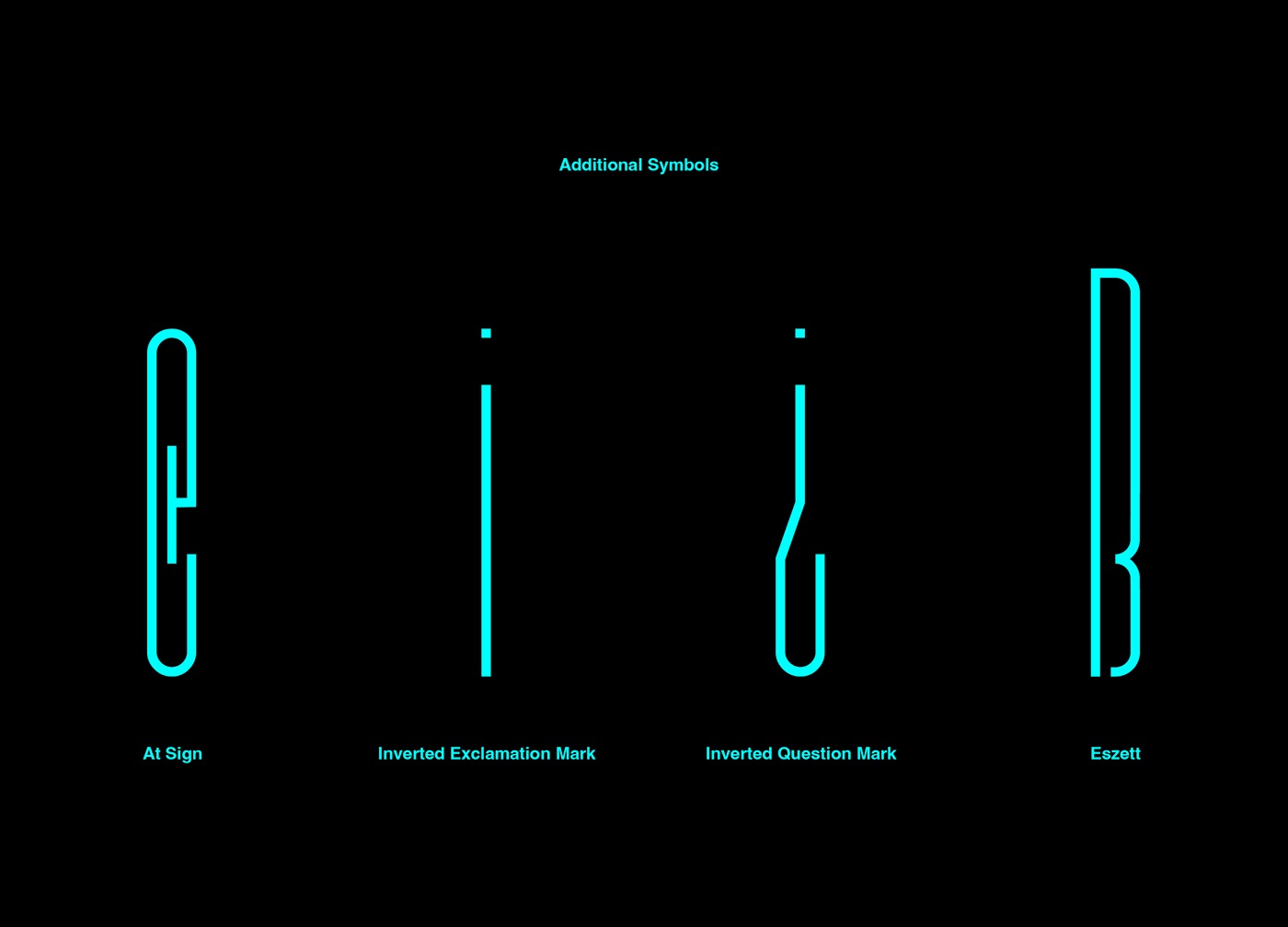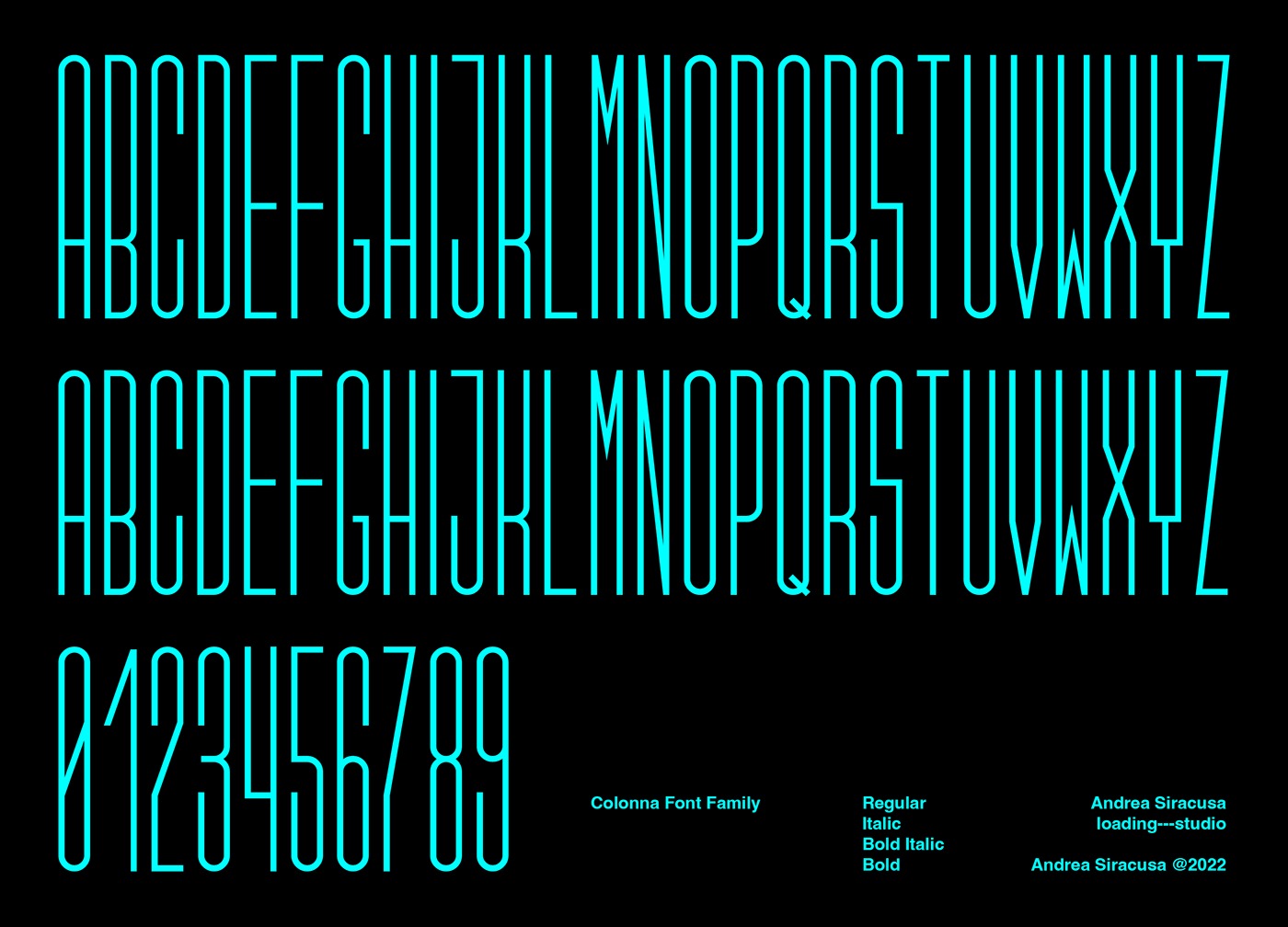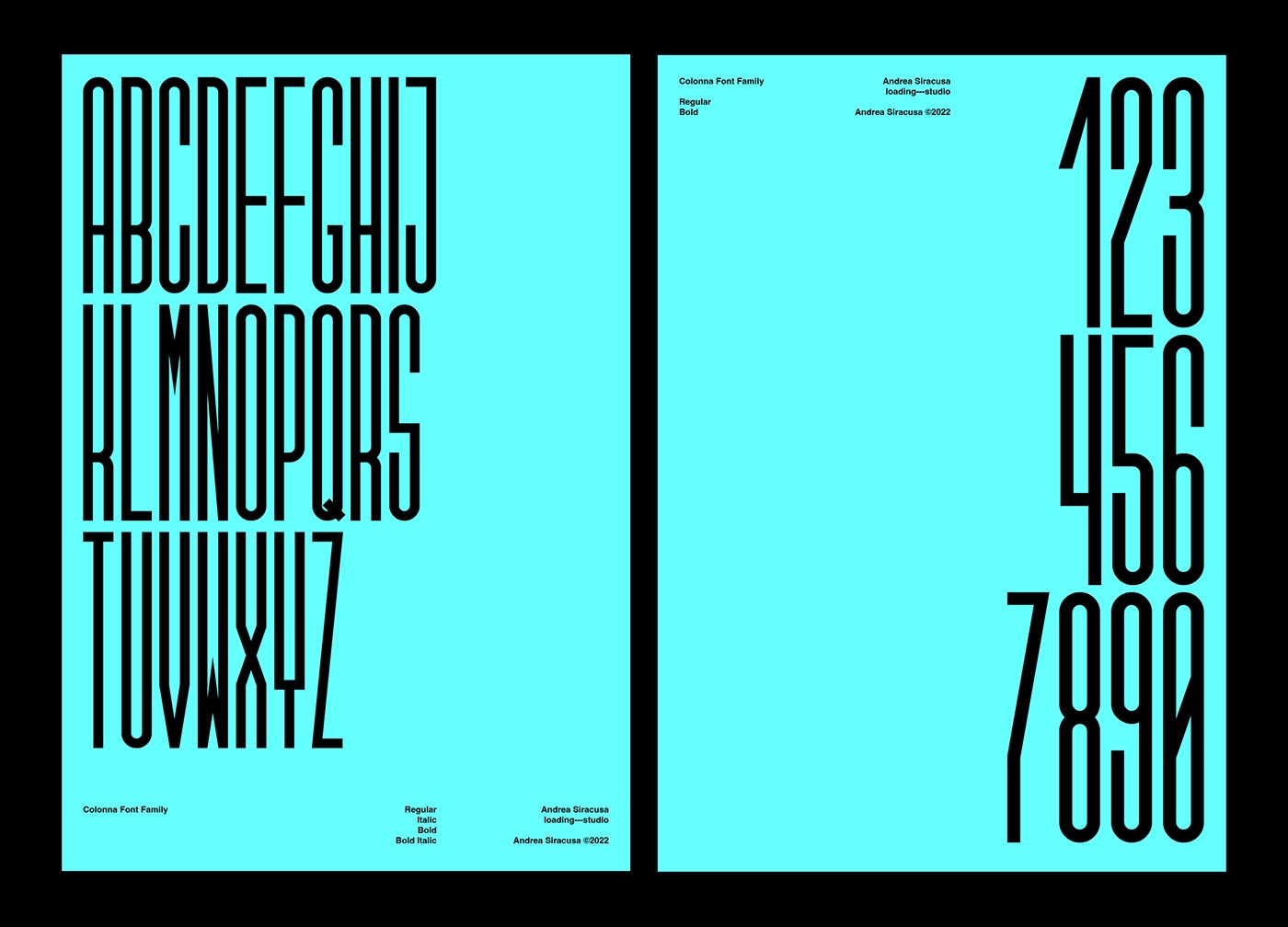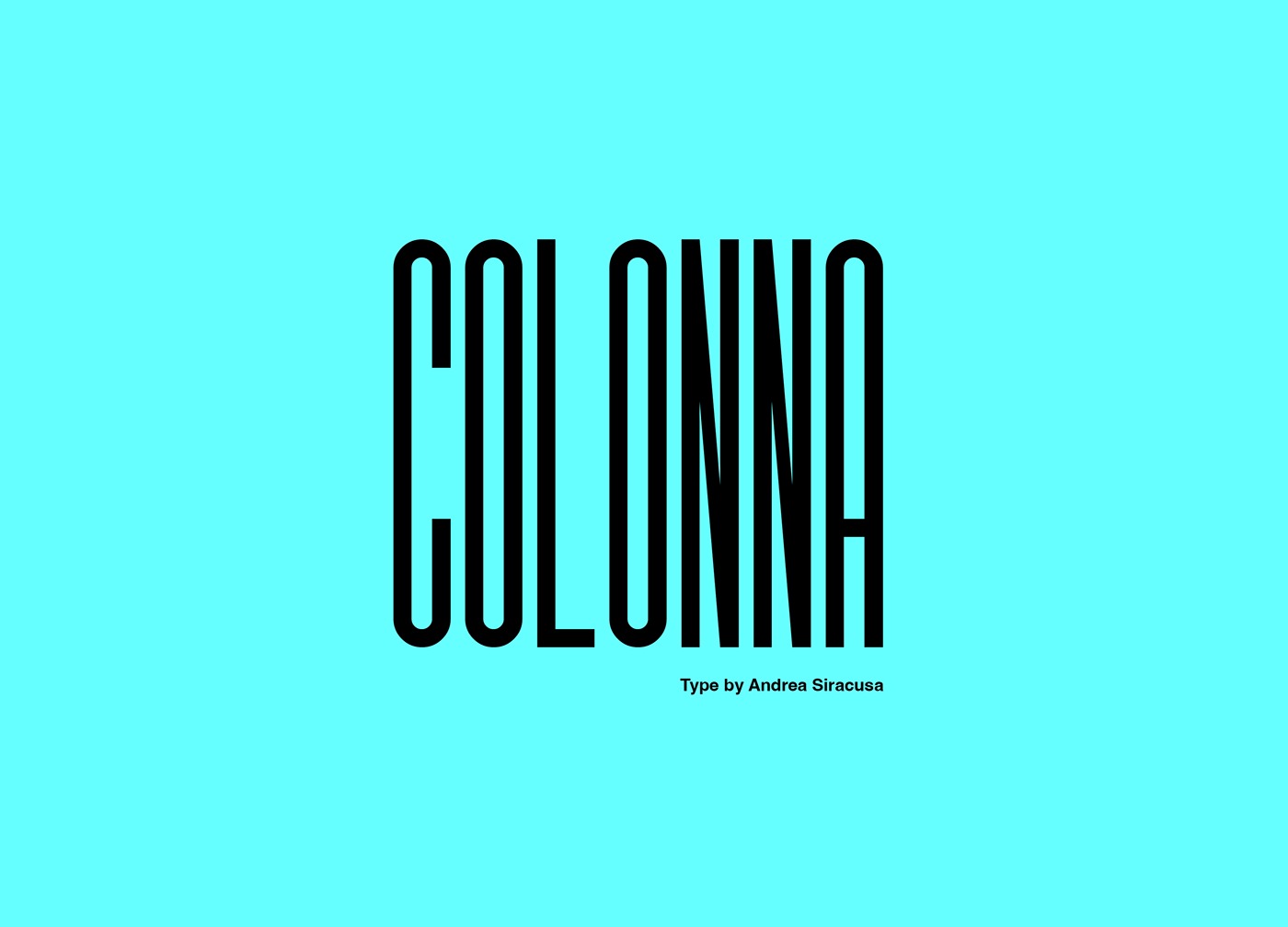
COLONNA Display Font
This typeface designed by Andrea Siracusa is an display sans-serif font family inspired from titles in movie posters. Its elongated shapes and minimal aesthetic make it perfect to be used for bold big titles. It comes in four different weights: Regular, Italic, Bold and Bold Italic. Its Basic Latin and Latin Extended glyphs, making it easy to compose Latin languages. Colonna Family is overall an easy-to-use display font designed to strike.